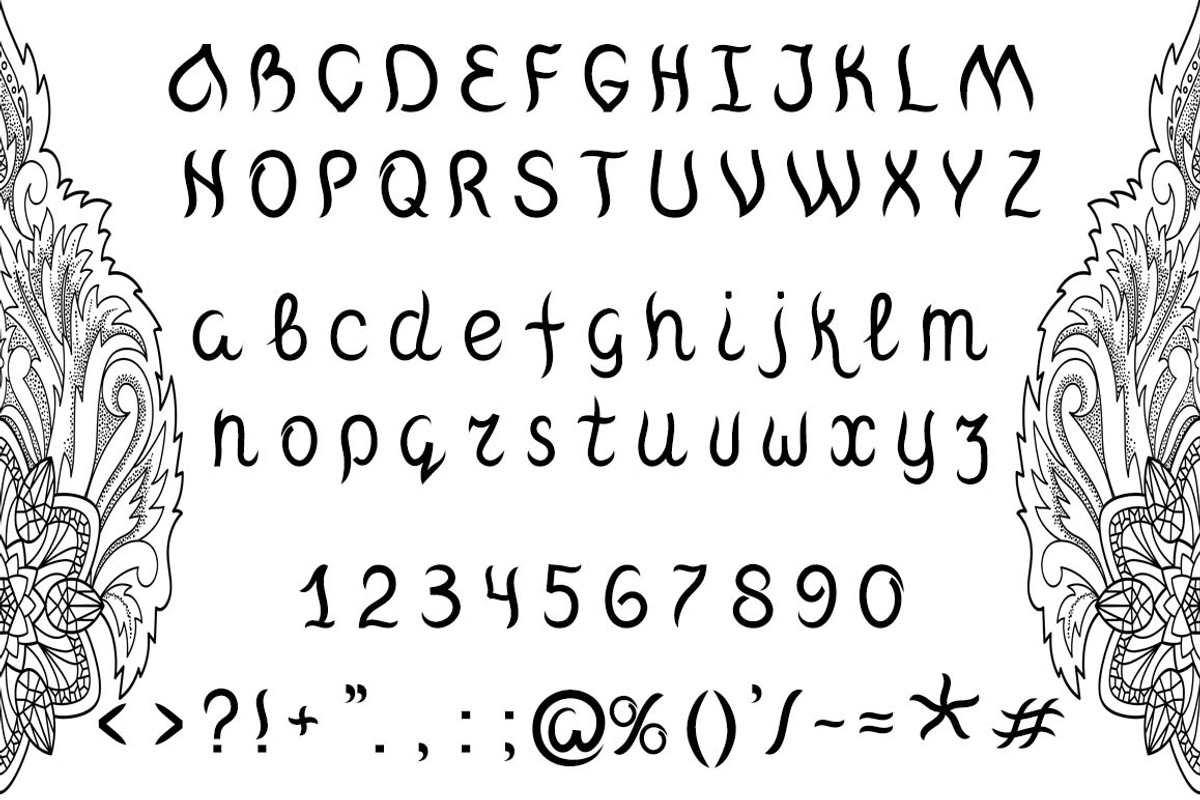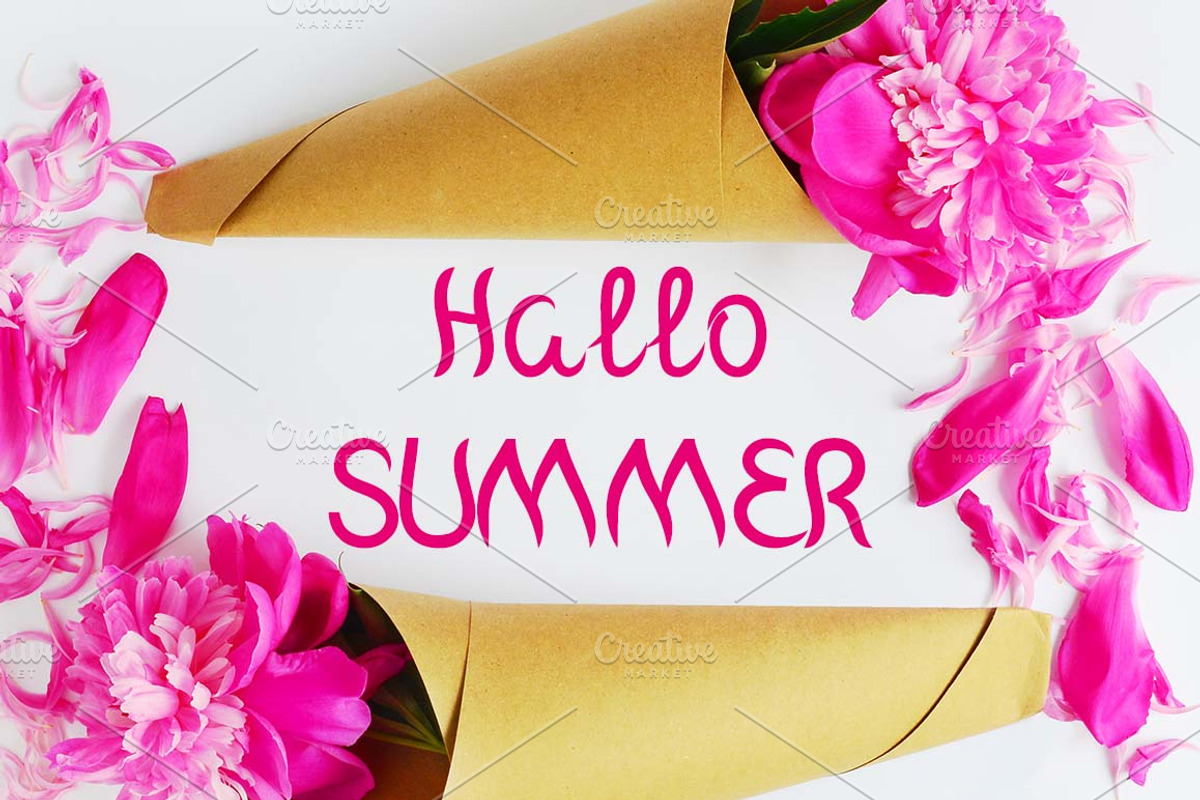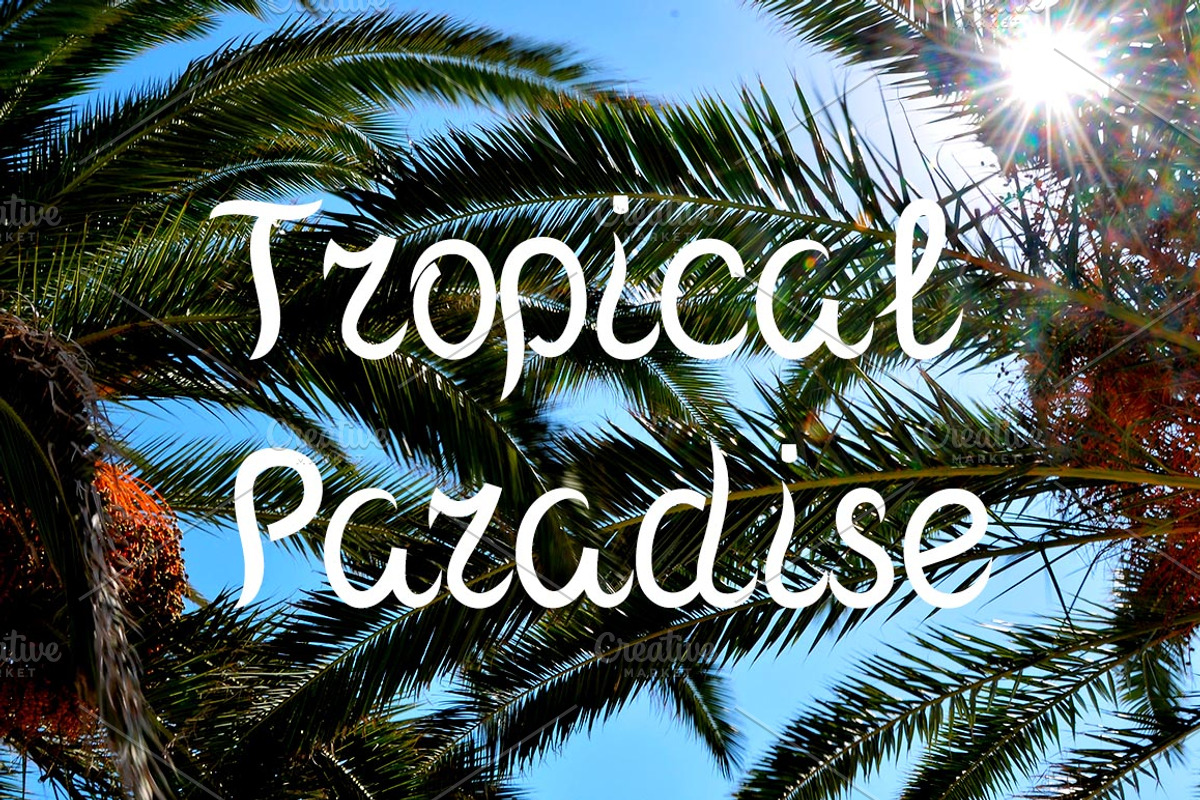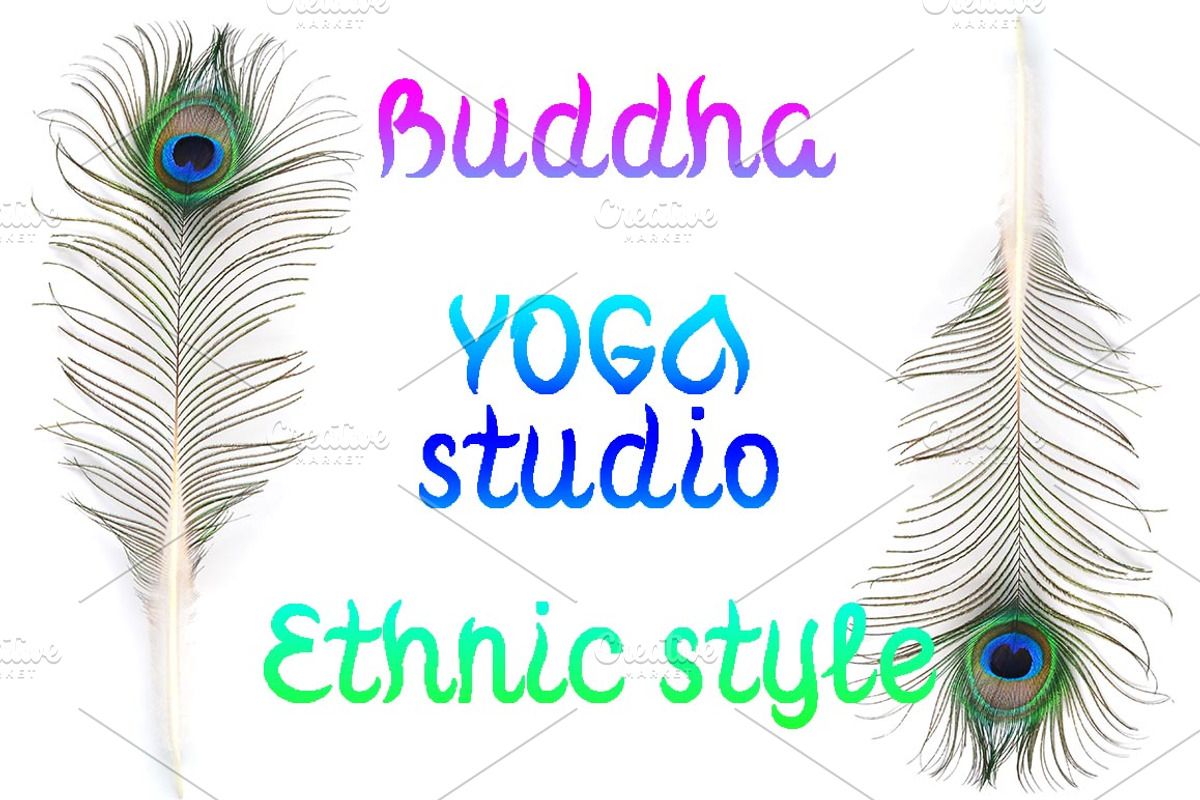
Mantra Font
Mantra Font by Elena Lux is a font selected for branding, posters, packaging, typography.
Why Mantra Font is worth a look
Mantra Font by Elena Lux fits naturally into Branding, posters, packaging, typography.